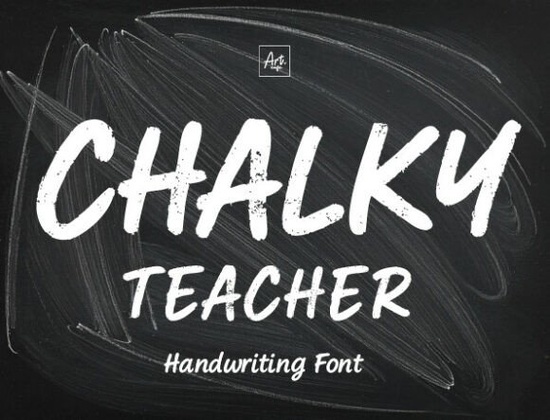
If you’ve ever wanted to add a little classroom charm to your designs, the Chalky Teacher Font might be just what you’re looking for. It’s a hand-drawn typeface that mimics the look of real chalk writing on a blackboard complete with uneven strokes and subtle texture. Whether you’re making printable worksheets, classroom labels, or back-to-school party invites, this font brings a warm, nostalgic feel without looking too polished or stiff.
Designed with educators and creative makers in mind, Chalky Teacher works especially well for projects that need a friendly, approachable vibe. Think bulletin board headers, homeschool planners, kids’ activity sheets, or even teacher appreciation gifts. The imperfections in the letterforms are intentional they help the font feel authentic, like something actually written by hand during morning circle time.
What kinds of projects work best with Chalky Teacher?
This font shines in any design where a playful, schoolhouse aesthetic matters. Here are a few real-world uses:
- Classroom printables: Weekly schedules, behavior charts, or reading logs
- Educational resources: Flashcards, tracing sheets, or vocabulary posters
- Teacher-themed merchandise: T-shirts, mugs, or tote bags for staff appreciation
- Kids’ party decor: Birthday banners, favor tags, or invitation headers
- Chalkboard-style signs: Even if you’re not using an actual chalkboard, this font gives that classic look digitally
Because it’s a display font (not meant for long paragraphs), keep your use focused on headlines, titles, or short phrases. Pair it with a clean sans-serif for body text if you’re layering fonts.
How does it compare to other playful fonts?
If you like the hand-lettered, whimsical style of Chalky Teacher, you might also enjoy exploring other character-driven display fonts. For example, the Fox Chubby Font offers a rounder, bouncier personality great for children’s books or baby shower designs. And if you’re planning seasonal projects, the Witch Halloween Font delivers spooky-but-cute energy perfect for October crafts.
Each of these fonts serves a different mood, but they all share that handcrafted warmth that stock fonts often lack. That’s especially valuable if you’re selling printables or POD products customers notice when something feels personal and intentional.
Is this font easy to use for beginners?
You don’t need advanced design skills to get great results. Even typing a simple phrase like “Welcome Back!” in this font instantly evokes a cheerful classroom atmosphere. Just remember: because of its textured edges, avoid using it at very small sizes it’s best displayed large enough to see the chalk-like details.
Tips for getting the most out of this font
To make your designs feel cohesive:
- Stick to a limited color palette. Classic chalk colors like white, yellow, light blue, or pink pop beautifully against dark backgrounds.
- Add subtle textures. Overlay a faint paper grain or chalkboard background to enhance realism.
- Avoid over-decoration. Let the font’s natural character be the star skip heavy drop shadows or outlines unless your project calls for it.
- Test readability. While it’s charming, ensure letters like “a,” “e,” and “g” are clear in your final layout, especially for young readers.
Whether you’re a teacher creating next week’s classroom materials or a small business owner designing a back-to-school digital product bundle, Chalky Teacher adds instant personality without requiring extra illustration work.